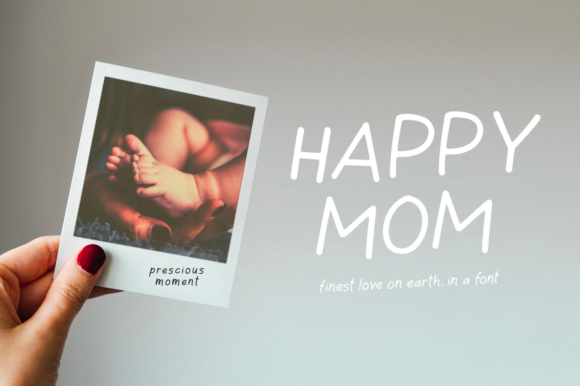
Introducing Happy Mom Font - A Whimsical Charm for Your Visual Expressions
Step into the world of Happy Mom Font, a captivating script font that exudes warmth, playfulness, and an undeniable charm. Crafted with meticulous attention to detail, each letter in this font family dances with a unique personality, evoking a sense of joy and wonder.
Unleash the Beauty of Imperfection
Happy Mom Font embraces the beauty of imperfection, mirroring the natural flow of handwritten strokes. Its whimsical nature adds a touch of authenticity and relatability to your designs, transporting your audience to a realm of lightheartedness and creativity.
Craft Compelling Instagram Captions
With its innate charm, Happy Mom Font lends itself seamlessly to captivating Instagram captions. Let your words dance across the screen, leaving an indelible impression on your followers. Its easy-to-read characters ensure that your message shines through, resonating with your audience on a deeper level.
Elevate Your Chalkboard Art
Happy Mom Font transforms ordinary chalkboard quotes into works of art. Its playful demeanor brings life to educational materials, classroom displays, and heartwarming messages. Engage your students, colleagues, or loved ones with visuals that spark imagination and inspire creativity.
Discover the Endless Possibilities
Happy Mom Font's versatility extends beyond Instagram captions and chalkboard art. Its adaptability knows no bounds, making it a perfect choice for a wide range of personal and professional projects. Explore its potential in logos, branding, invitations, greeting cards, posters, flyers, and more. Let Happy Mom Font elevate your visual expressions to new heights.
Experience the Joy of Creation
With Happy Mom Font, the possibilities are endless. Dive into a world where creativity thrives and joy abounds. Let the font's infectious charm infuse your designs with a touch of whimsy and heartfelt warmth. Embrace the Happy Mom Font and embark on a creative journey that will leave a lasting impression on your audience.